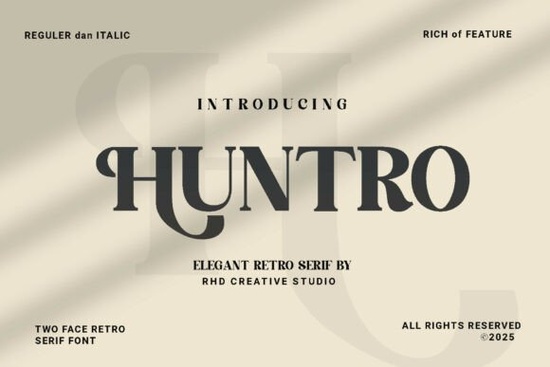
If you're working on a project that calls for timeless elegance with a hint of vintage flair, Huntro - Elegant Retro Serif Font might be exactly what your design needs. Inspired by the editorial typography of the 1960s and 70s, Huntro blends bold strokes, refined curves, and distinctive decorative serifs to create a look that feels both nostalgic and contemporary. Whether you’re crafting luxury packaging, designing boutique branding, or styling social media graphics, this font adds instant sophistication without looking dated.
Huntro stands out because it doesn’t just mimic retro styles it reinterprets them with modern clarity. The thick letterforms and polished details make headlines pop, while its PUA-encoded glyphs ensure all special characters and ornaments are easy to access in standard design software. That means no extra plugins or workarounds just seamless integration into your workflow.
What makes Huntro ideal for branding and print projects?
Small businesses and print-on-demand sellers often need fonts that convey quality and character without overwhelming their message. Huntro delivers that balance. Its authoritative presence works beautifully for:
- Luxury product labels – especially when paired with minimalist layouts or gold foil accents
- Boutique logos – where heritage and style matter
- Editorial headers – think lifestyle magazines or curated newsletters
- Wedding or event invitations – offering old-world charm with clean execution
Because of its strong visual weight, Huntro shines as a display font. For body text, pair it with a clean sans-serif like Helvetica or Montserrat to keep readability high while letting Huntro take center stage.
How does Huntro compare to other retro serif fonts?
Not all retro serifs are created equal. Some lean too heavily into ornamentation, making them hard to use outside niche contexts. Others feel generic. Huntro strikes a sweet spot: it’s distinctive but not distracting, vintage but not kitschy.
If you’ve explored options like Roghen, you’ll notice Huntro offers a more editorial, fashion-forward vibe less rustic, more refined. While Roghen leans into handcrafted warmth, Huntro channels the confidence of mid-century magazine covers and high-end catalogues. Both have their place, but if your project calls for sleek nostalgia with urban polish, Huntro is likely the better fit.
Can hobbyists and crafters use Huntro effectively?
Absolutely. You don’t need professional design experience to make Huntro work for you. Its clear structure and consistent spacing mean even simple layouts like quote graphics, greeting cards, or Etsy shop banners gain an elevated look with minimal effort.
Crafters using Cricut or Silhouette machines will appreciate that Huntro’s solid strokes cut cleanly in vinyl or paper. And because it includes extended characters via PUA encoding, you can easily access swashes or alternate glyphs in apps like Adobe Illustrator, Affinity Designer, or even Canva (with desktop font upload enabled).
For those building digital products think printable planners, wall art, or templates Huntro adds perceived value. Customers associate its aesthetic with premium quality, which can help your listings stand out in crowded marketplaces.
While you’re there, consider exploring other serif fonts in the same category. Fonts like Huntro and its stylistic cousins offer varied takes on retro elegance some softer, some bolder so you can match the exact mood of your project.
Before you start designing, keep these tips in mind:
- Use Huntro sparingly – it’s a display font, so stick to headlines, logos, or short phrases.
- Pair wisely – combine with neutral sans-serifs to avoid visual clutter.
- Test at different sizes – fine details may need adjustment for very small print or low-resolution screens.
Whether you’re launching a new brand, refreshing your shop’s aesthetic, or creating personal keepsakes, Huntro offers a bridge between past and present that feels authentic not forced. Give it a try on your next project where elegance, memory, and clarity need to coexist.